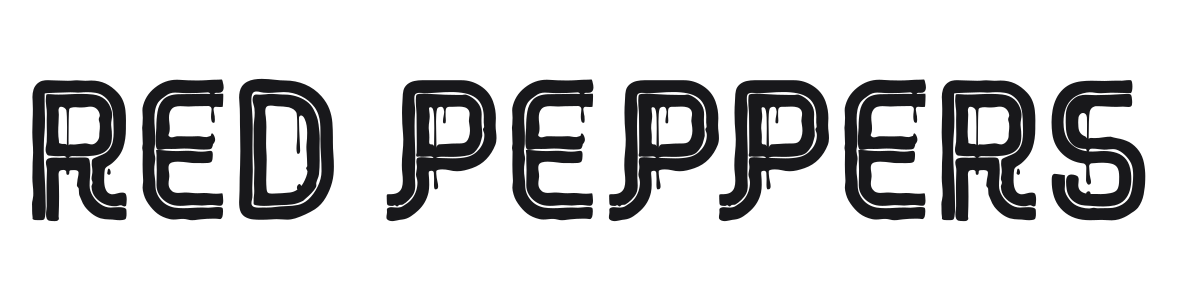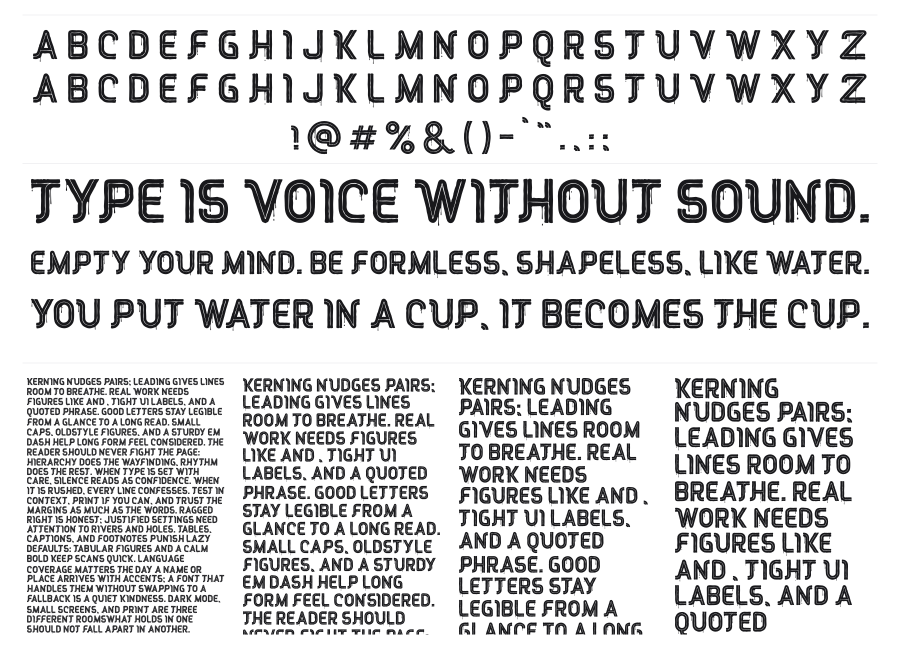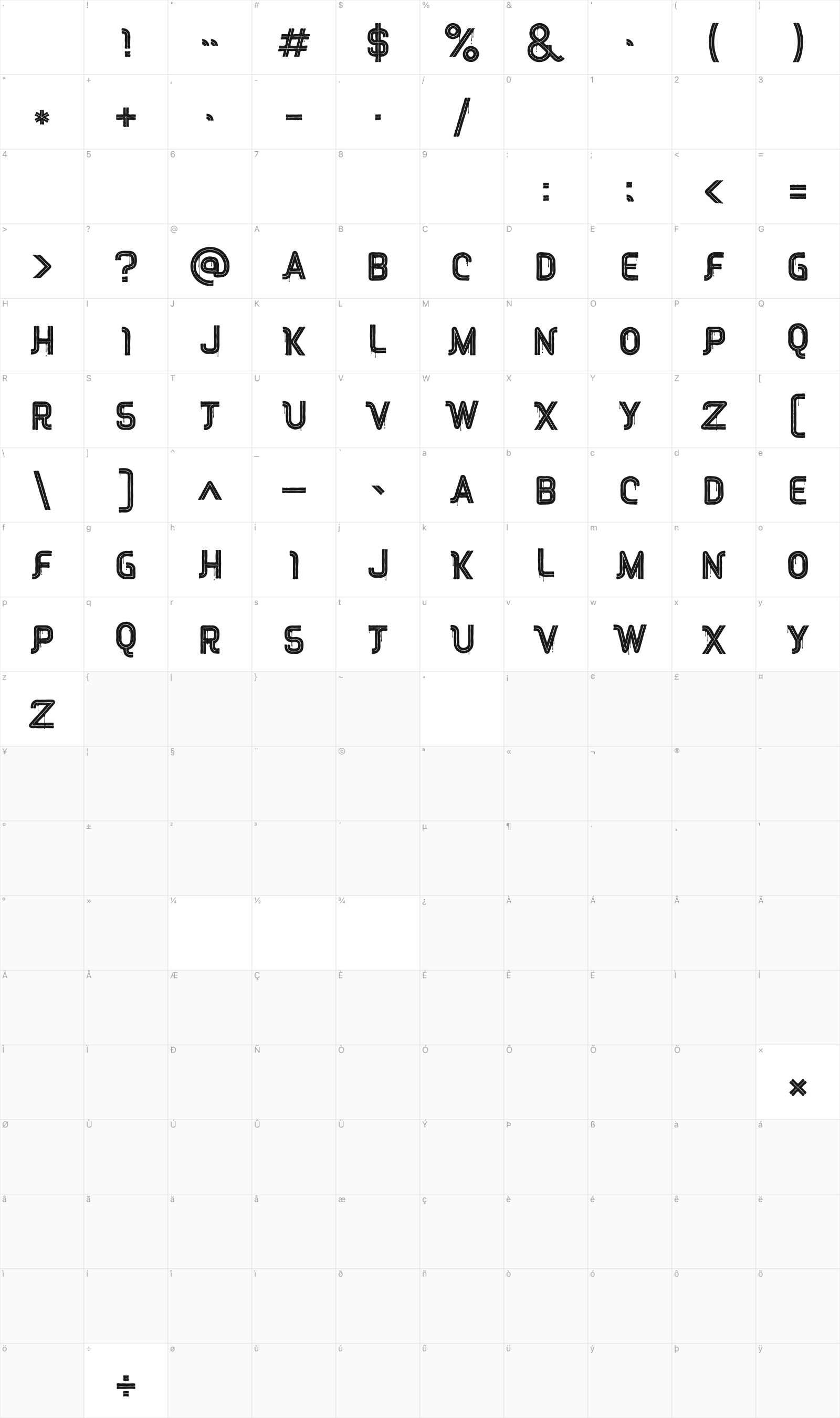
Red Peppers
Red Peppers is a bold condensed display font combining an inline stroke detail with heavy distress texturing throughout. The inline groove gives each character an almost architectural, layered quality, while the ink drips and eroded edges push it firmly into gritty, street-level territory. Strong at large sizes for posters, food branding, and anything that needs raw, punchy energy.